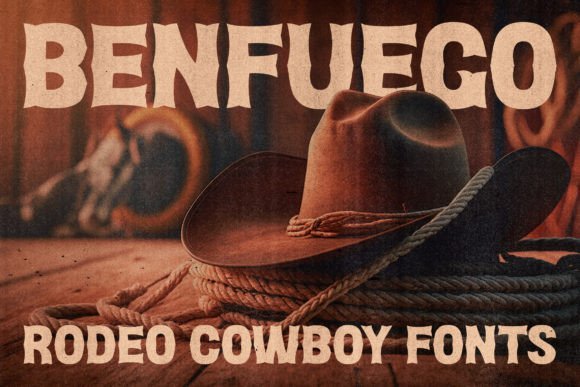
The Wild West of Typography: Meet Benfuego Font
Have you ever found yourself lost in a sea of bland, generic fonts, yearning for a typographical hero that embodies the untamed spirit of the American West? If so, you’re in luck! Your search is over, partner. Introducing Benfuego Font, a font that’s as bold and daring as the rodeo riders it’s inspired by.
Built to evoke the rugged elegance of the Wild West, Benfuego Font is the perfect addition to any designer’s toolkit. With its meticulous craftsmanship and rustic charm, this font is sure to add a touch of authenticity to your designs. Whether you’re creating a logo, a poster, or a website, Benfuego Font will help you stand out from the crowd and leave a lasting impression.
Key Features of Benfuego Font
- Unique Characteristics: Benfuego Font features a bold, energetic, and modern design, with a distinctive combination of sharp and rounded edges, making it ideal for use in headlines, titles, and other attention-grabbing text.
Benfuego Font Review
As a designer, I’ve had the chance to work with the Benfuego Font, and here’s my honest take on it.
- The Benfuego Font has a unique, energetic feel that can add a lot of personality to a design.
- The font’s bold lines and dynamic curves make it perfect for creating eye-catching headings and titles.
- The font’s flexibility makes it suitable for a wide range of design projects, from digital interfaces to print materials.
- The font’s boldness can sometimes make it difficult to read, especially in smaller sizes.
- The font’s dynamic feel can be overwhelming in certain contexts, making it hard to balance with other design elements.
- The font’s flexibility can also make it challenging to maintain consistency across different design projects.
Overall, I think the Benfuego Font is a great addition to any designer’s toolkit. While it has its limitations, its unique energy and flexibility make it a valuable asset for creating engaging and memorable designs. With careful use and attention to balance, the Benfuego Font can be a powerful tool for taking your designs to the next level.
Tips for Getting the Most Out of Benfuego Font
Benfuego Font is perfect for creating bold and eye-catching designs. To get the most out of it, use it for headings and titles, and pair it with a clean and simple font for body text. Experiment with different font sizes and colors to add emphasis and create visual hierarchy.
Benfuego Font is commonly used for:
– Headings and titles
– Brochures and flyers